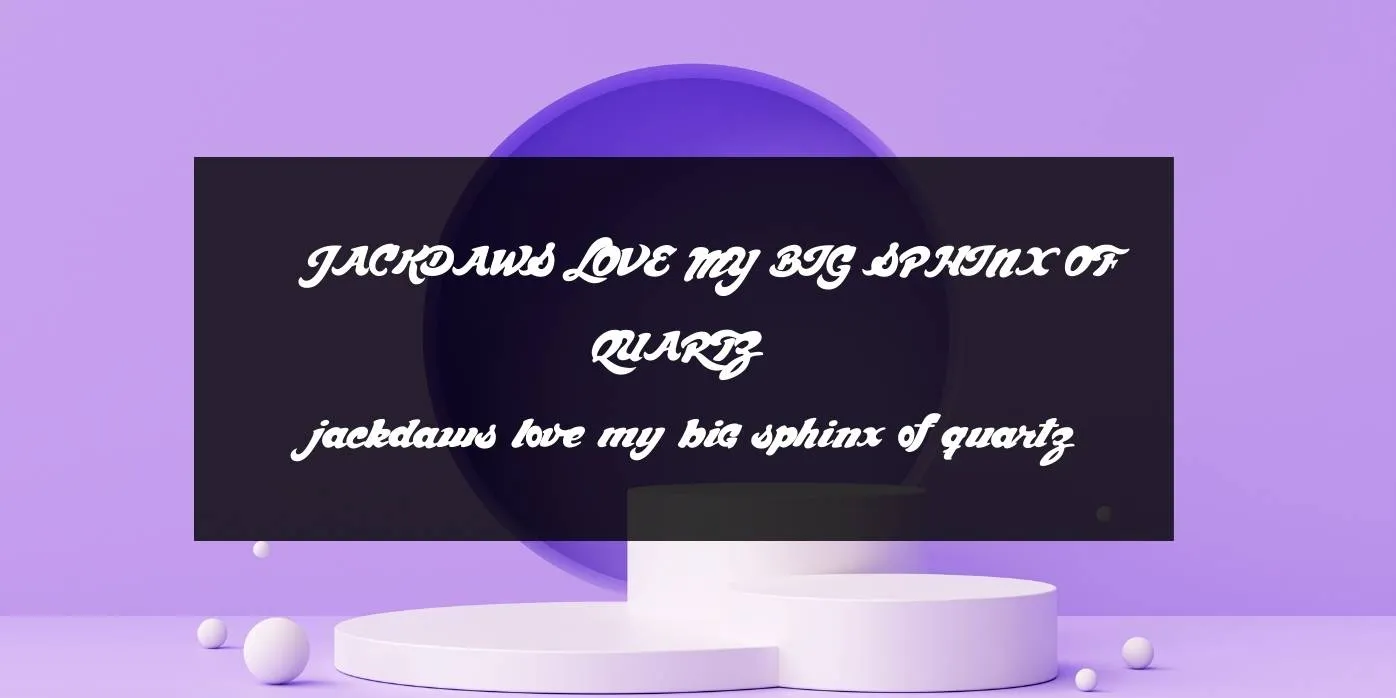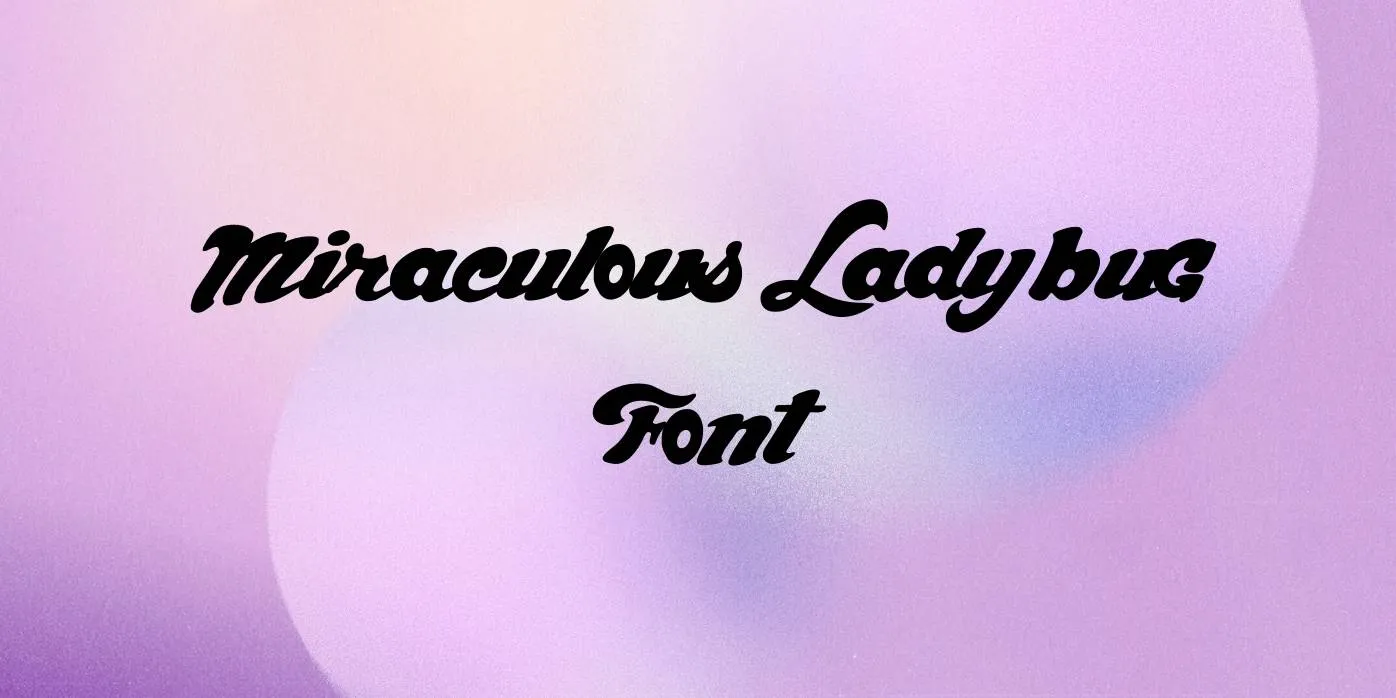
Miraculous Ladybug Font
Here, we present a tremendous typeface known as Miraculous Ladybug Font. It belongs to the script typeface family. This classy font family was created by Svetoslav Simov and Mihail Petrov. This family has keen and clean features.
Miraculous Ladybug is a French CGI superhero television series created by Thomas Astruc and produced by Jeremy Zag. The series features two Parisian teenagers, Marinette Dupain-Cheng and Adrien Agreste, who transform into the superheroes Ladybug and Cat Noir respectively to protect Paris from supervillains. The copy and paste function of this family is best for text design projects. You can also use dynalight font which is closest to this font family.